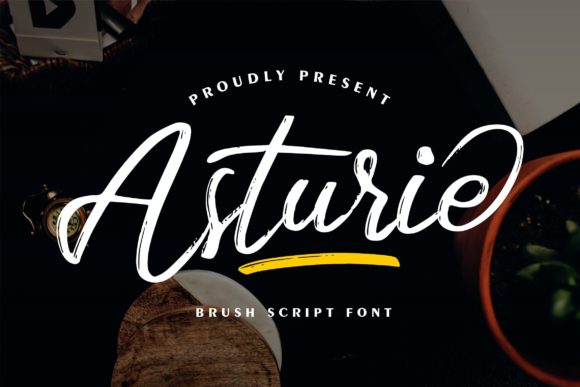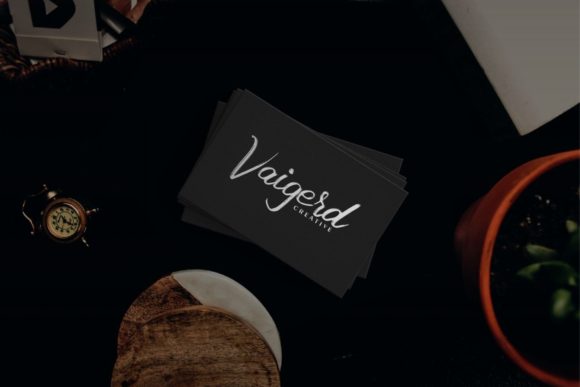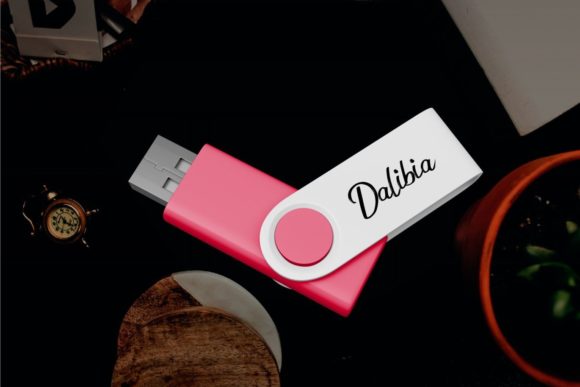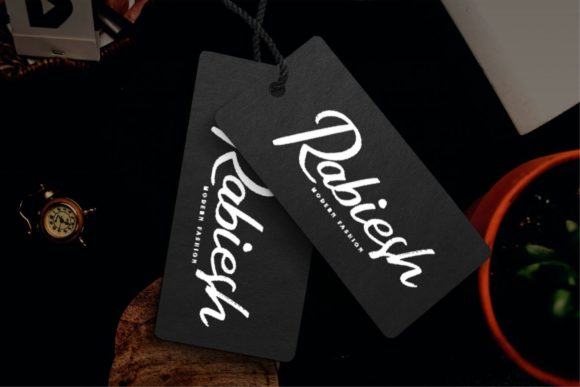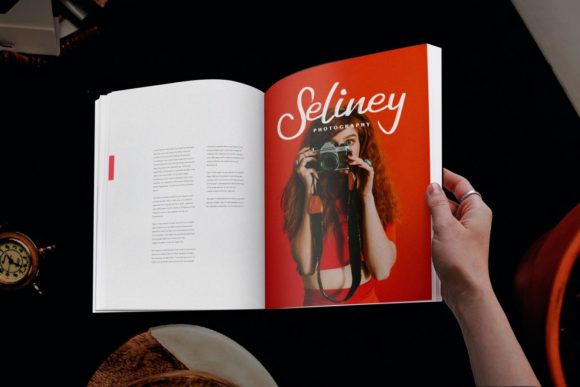
About Asturie Font
Asturie is a beautiful and flowing brushed script font that adds a touch of elegance and style to your designs. With its smooth curves and graceful letterforms, this font is perfect for fashion branding, editorial designs, and any project that requires a sophisticated and trendy look.
The flowing nature of Asturie gives it a sense of movement and fluidity, making it visually appealing and captivating. The brush strokes create a dynamic and energetic feel, adding personality and charm to your designs. Whether used for fashion branding, editorial layouts, or other creative projects, Asturie adds a touch of sophistication and modernity.
The smooth curves and balanced letterforms of Asturie ensure a harmonious and visually pleasing result. Each letter is carefully crafted to maintain legibility and style, creating a seamless and cohesive overall appearance. The font’s versatility allows it to adapt to various design themes and concepts, providing endless possibilities for creativity.
Asturie is a confident choice for fashion branding and editorial designs, as it captures the essence of contemporary style and elegance. Its brush-inspired look adds a sense of authenticity and artistic flair to your projects. Whether used for logos, packaging, advertising materials, or social media graphics, Asturie will make a lasting impression.
When using Asturie, you’ll appreciate its attention to detail and craftsmanship. The carefully designed brush strokes and smooth curves create a sense of fluidity and movement, adding visual interest to your text. The spacing and kerning are also well thought out, ensuring that your text appears balanced and legible.
With its versatility and stylish appeal, Asturie is a valuable asset in your design toolkit. Whether you’re creating a fashion brand, designing editorial layouts, or working on other creative projects, Asturie will help you achieve a polished and sophisticated look.
In summary, Asturie is a flowing and brushed script font that adds elegance and style to your fashion branding, editorial designs, and other creative projects. Its smooth curves, balanced letterforms, and dynamic brush strokes create a captivating and trendy appearance. By incorporating Asturie into your designs, you can confidently create visually stunning and professional-looking materials that are sure to make an impact.